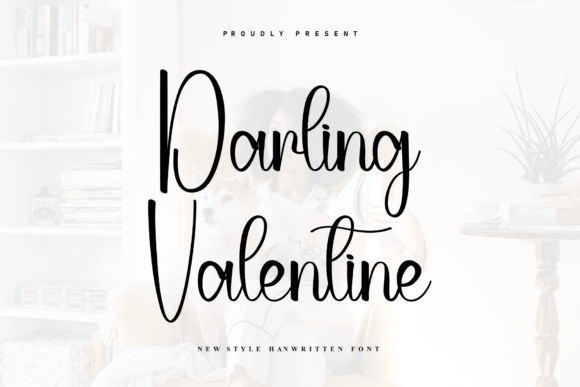
The Perfect Blend of Elegant and Casual: Unlocking the Power of Darling Valentine Font
Remember that moment when you’re brainstorming ideas for a new project, and suddenly, a spark of creativity hits you? For designers, those ‘aha’ moments are what drive us to create something truly special. For me, it was while browsing through a trendy stationery store that I stumbled upon a handwritten font that caught my eye – the Darling Valentine Font.
This charming font is more than just a pretty face; it’s a versatile tool that can elevate your designs to the next level. With its relaxed and sporty feel, Darling Valentine Font is perfect for branding, logos, wedding supplies, greeting cards, and more. Whether you’re looking to create a luxurious and elegant look or a casual, laid-back vibe, this font is sure to deliver.
Darling Valentine Font Key Features
- Unique Characteristics: This font features a beautiful, hand-drawn design with intricate details and a romantic feel, making it perfect for Valentine’s Day and other love-themed projects.
- Font Style: The font is available in a single style, with uppercase and lowercase letters, numbers, and punctuation marks.
- Language Support: The font supports a wide range of languages, including English, Spanish, French, German, Italian, Portuguese, and many more.
Darling Valentine Font Review
At first glance, I thought the Darling Valentine Font was a bit too over-the-top for my taste. However, as I delved deeper into its features, I found some redeeming qualities that make it a great choice for the right project. ✨
- Playful and whimsical feel: This font is perfect for creating a romantic or vintage-inspired atmosphere.
- Highly customizable: The font offers a range of style and size options to suit your design needs.
- Works well for digital and print: Whether you’re creating a social media graphic or a wedding invitation, this font adapts well to different mediums.
- Overly ornate: For some projects, the font’s intricate details may be distracting or too much to handle.
- Limited legibility at small sizes: While the font is customizable, it may lose some of its charm at extremely small sizes.
- May not be suitable for formal or professional designs: The font’s playful nature may not be suitable for formal or professional projects.
In conclusion, the Darling Valentine Font is a great choice for designers looking to add a touch of romance and whimsy to their projects. While it has some limitations, its customizability and versatility make it a valuable addition to any design arsenal. With careful consideration of the font’s strengths and weaknesses, I believe it can be a valuable tool in the right hands.
The Darling Valentine Font is perfect for creating romantic and elegant designs, such as:
Valentine’s Day cards and invitations
Love-themed social media graphics and ads
For best results, use the font in combination with pastel colors and floral patterns.